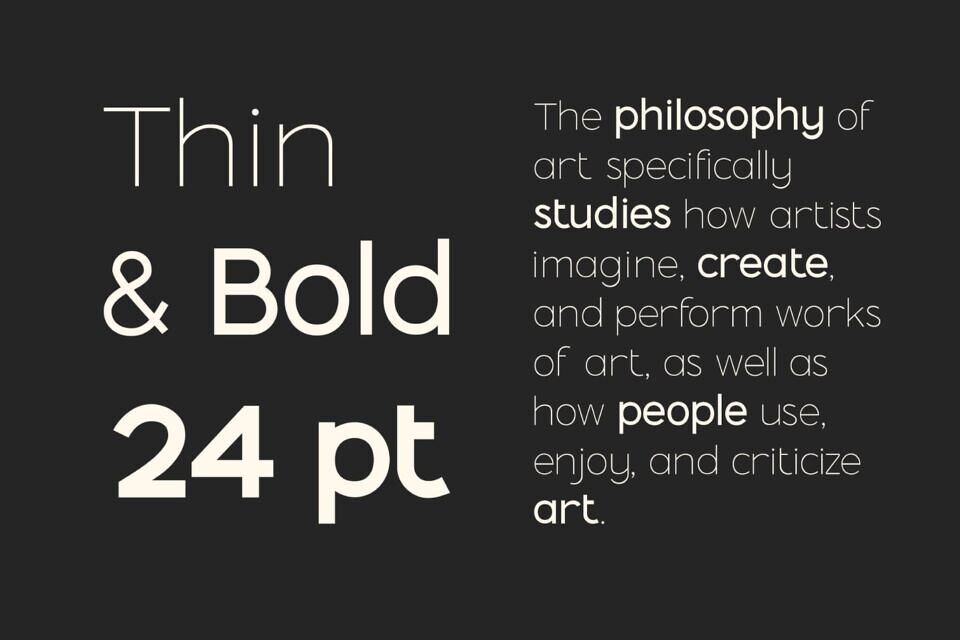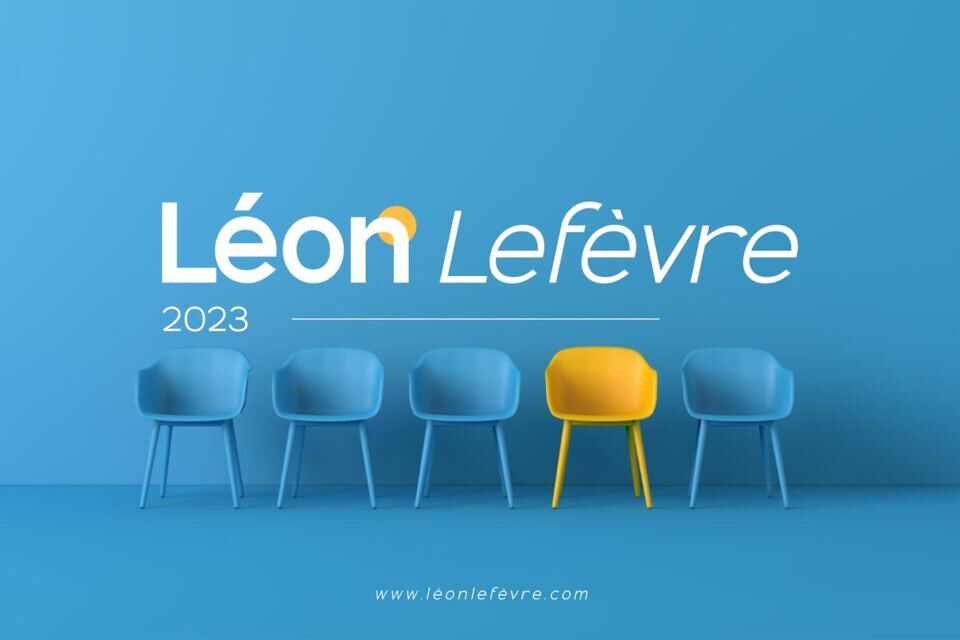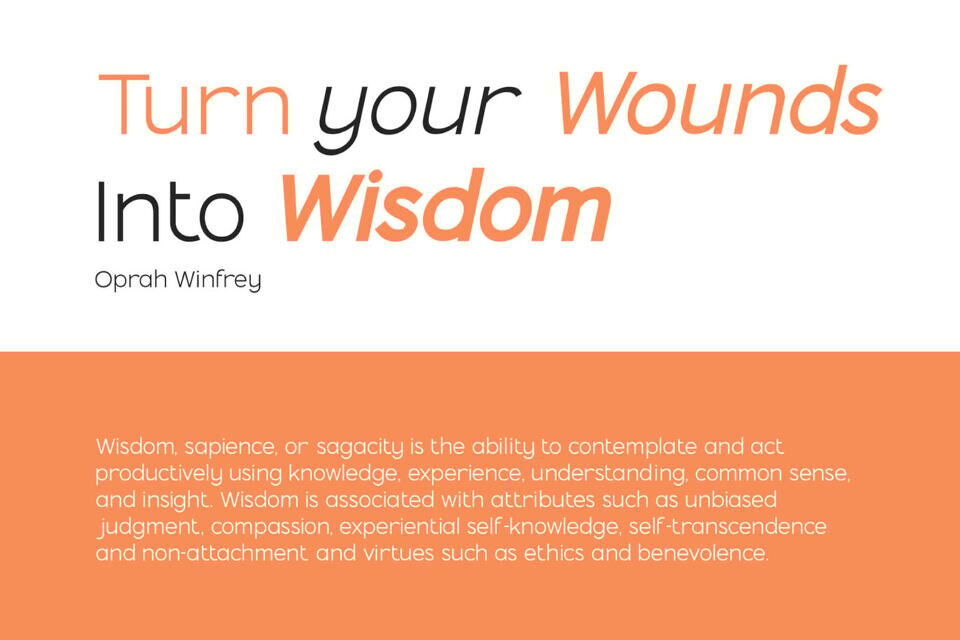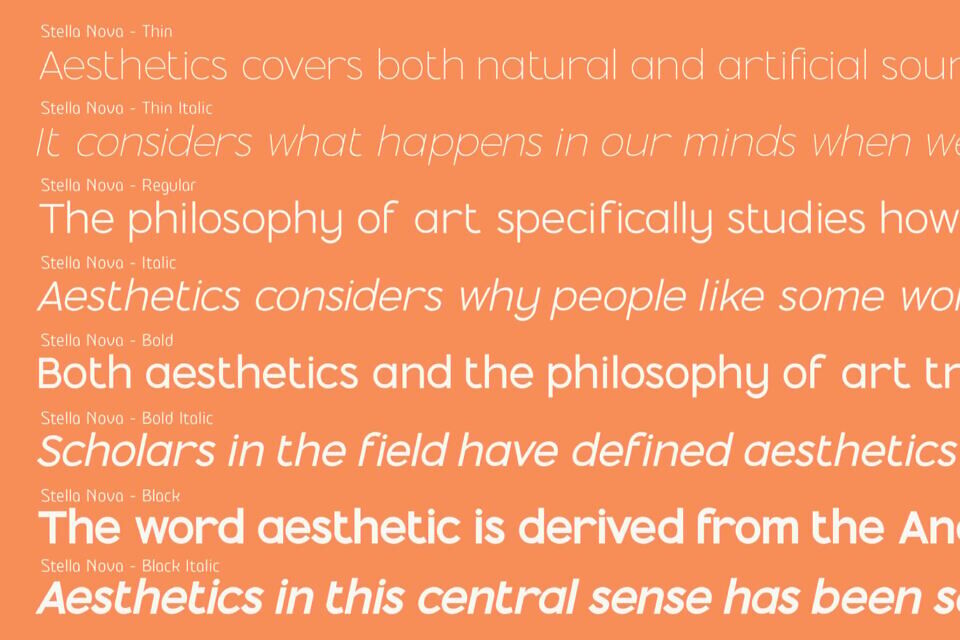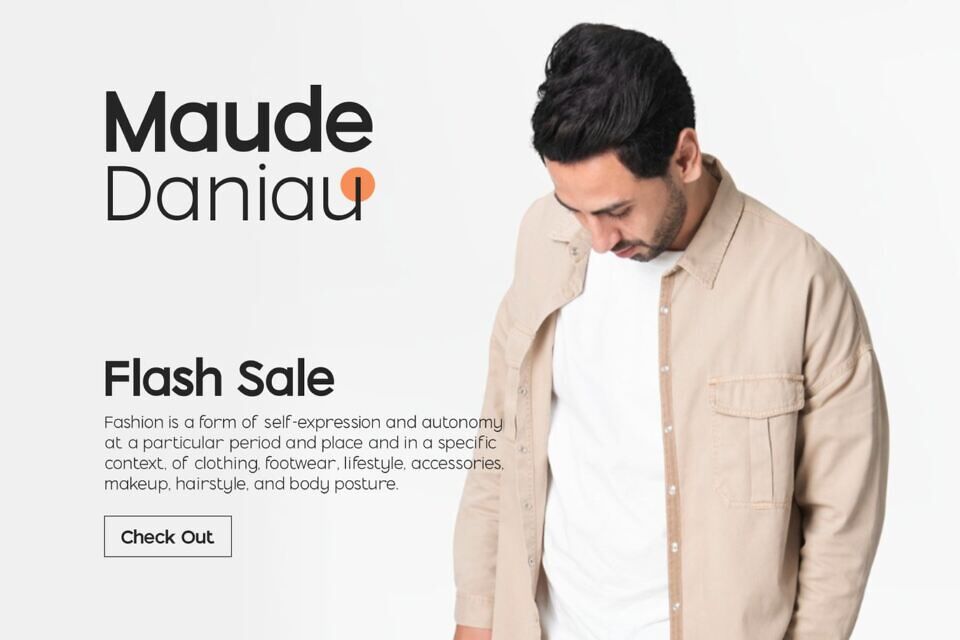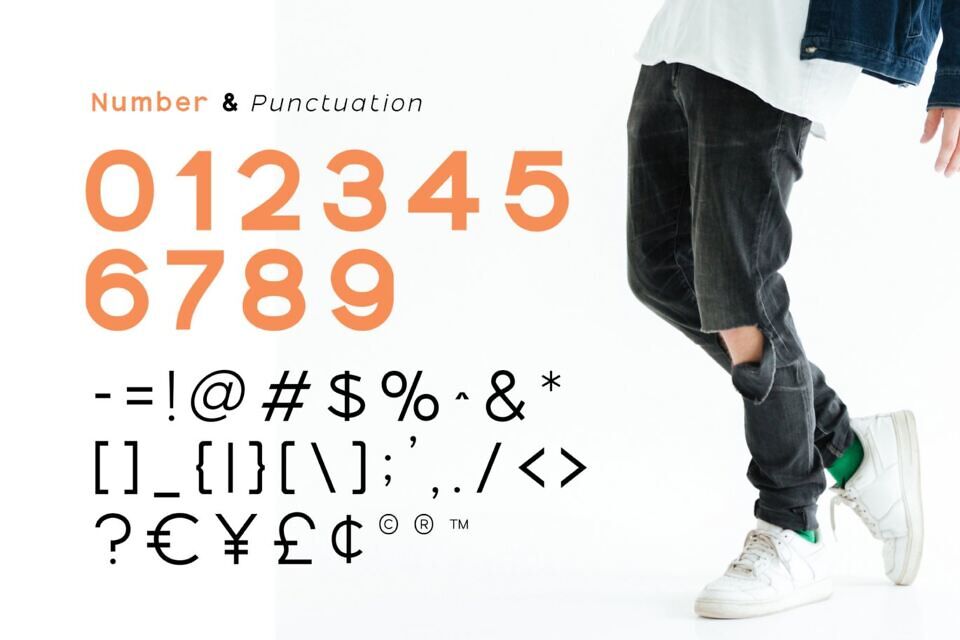
Stella Nova is an essential and elegant sans serif font. The font family consists of 8 fonts. Perfect for magazines, posters, logos, branding, websites, etc.
Stella Nova Font come wit 4 Weights ( + 4 italics ) and Multilingual Support.